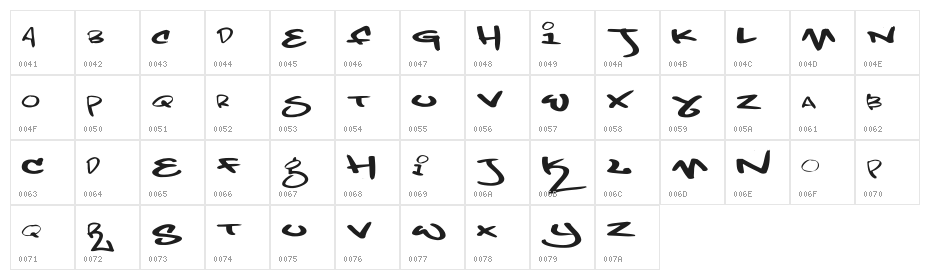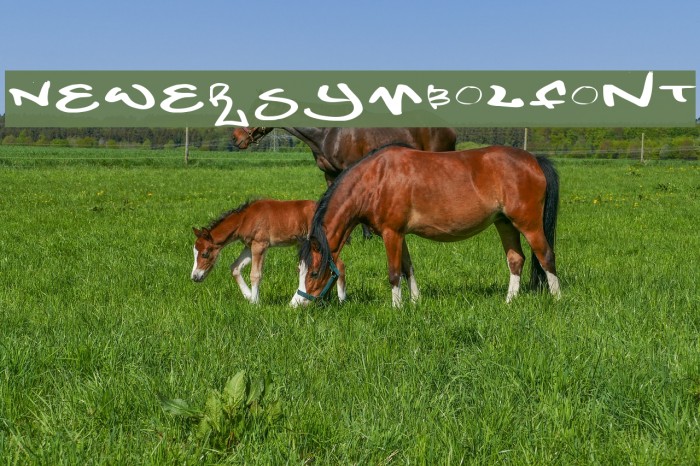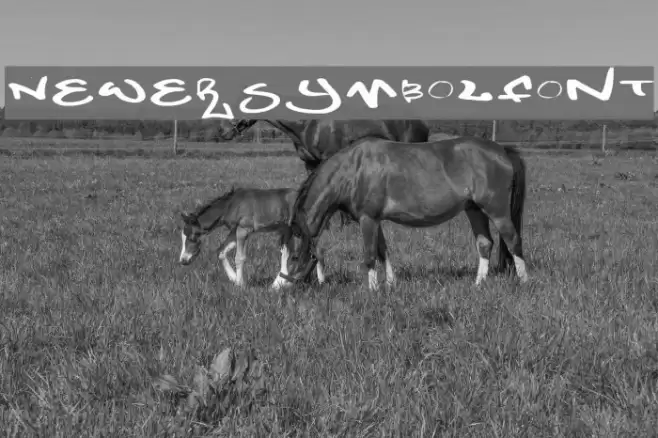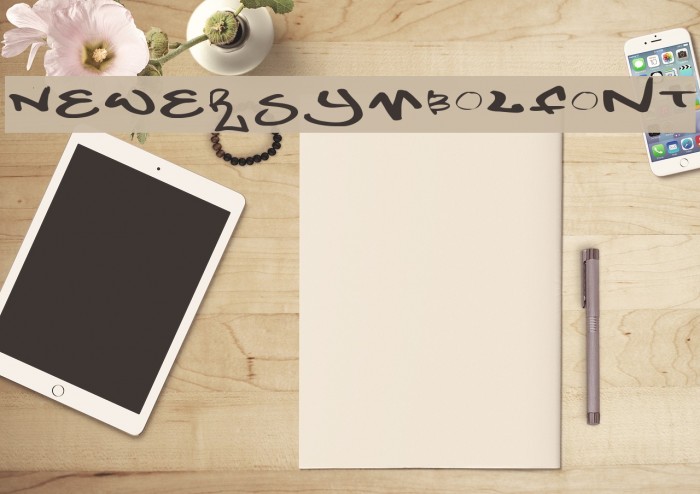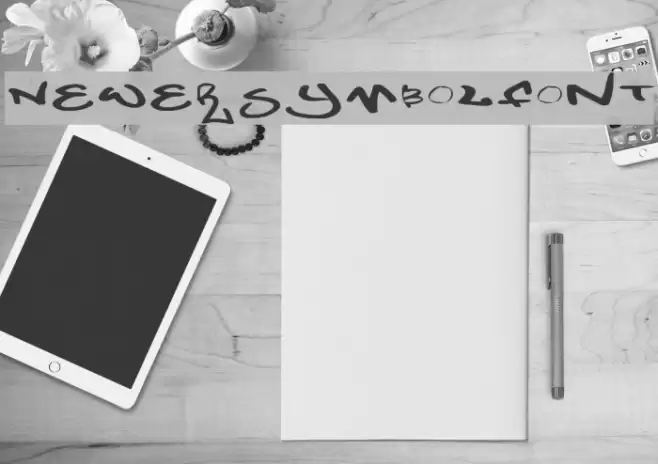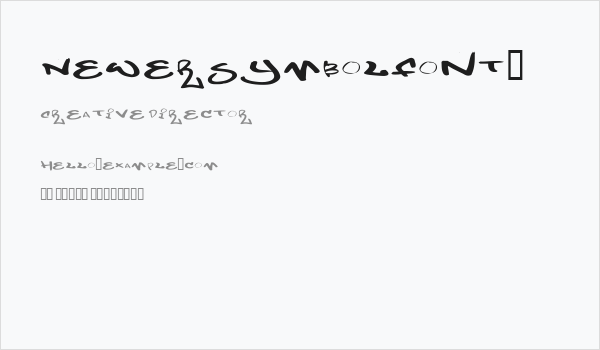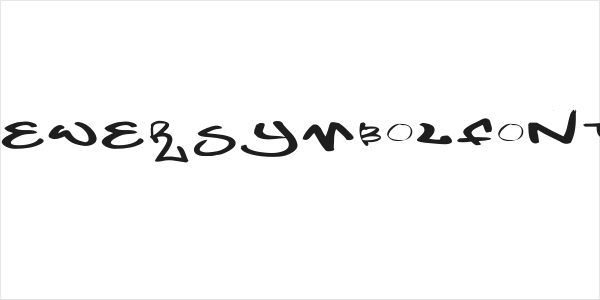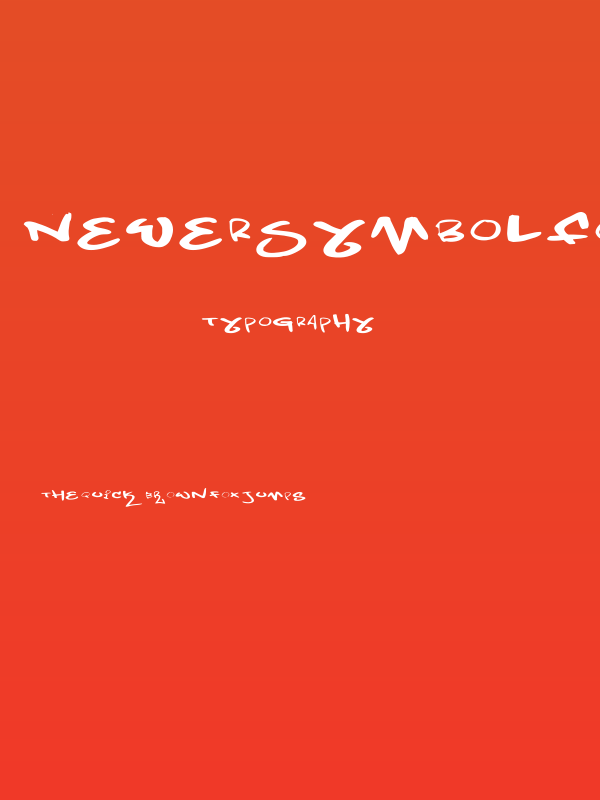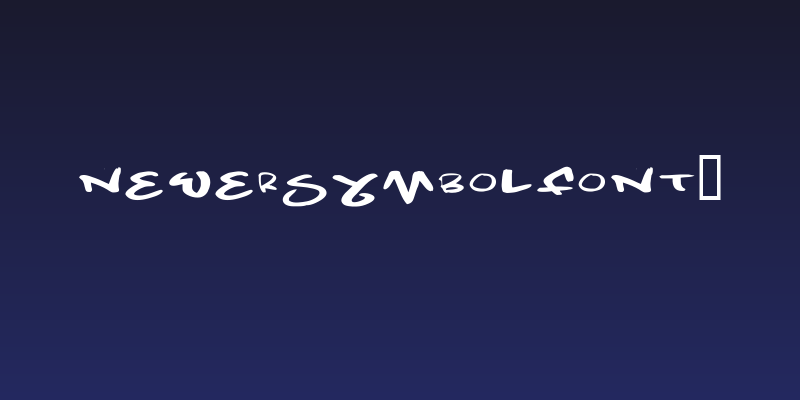
NewerSymbolFont5 Font
NewerSymbolFont5 Description
This font features a bold, expressive style with a handwritten appearance. The characters are dynamic and fluid, with varying stroke widths that give it a lively and energetic feel. The uppercase letters are particularly striking, with unique flourishes and curves that add personality. The lowercase letters maintain the same playful style, ensuring consistency throughout. The numbers and special characters follow the same design principles, making them easily recognizable and cohesive with the rest of the font. This font is ideal for projects that require a personal touch or a sense of creativity.
| Proposed Projects | Ideal for creative projects such as greeting cards, posters, and branding materials that require a personal and artistic touch. |